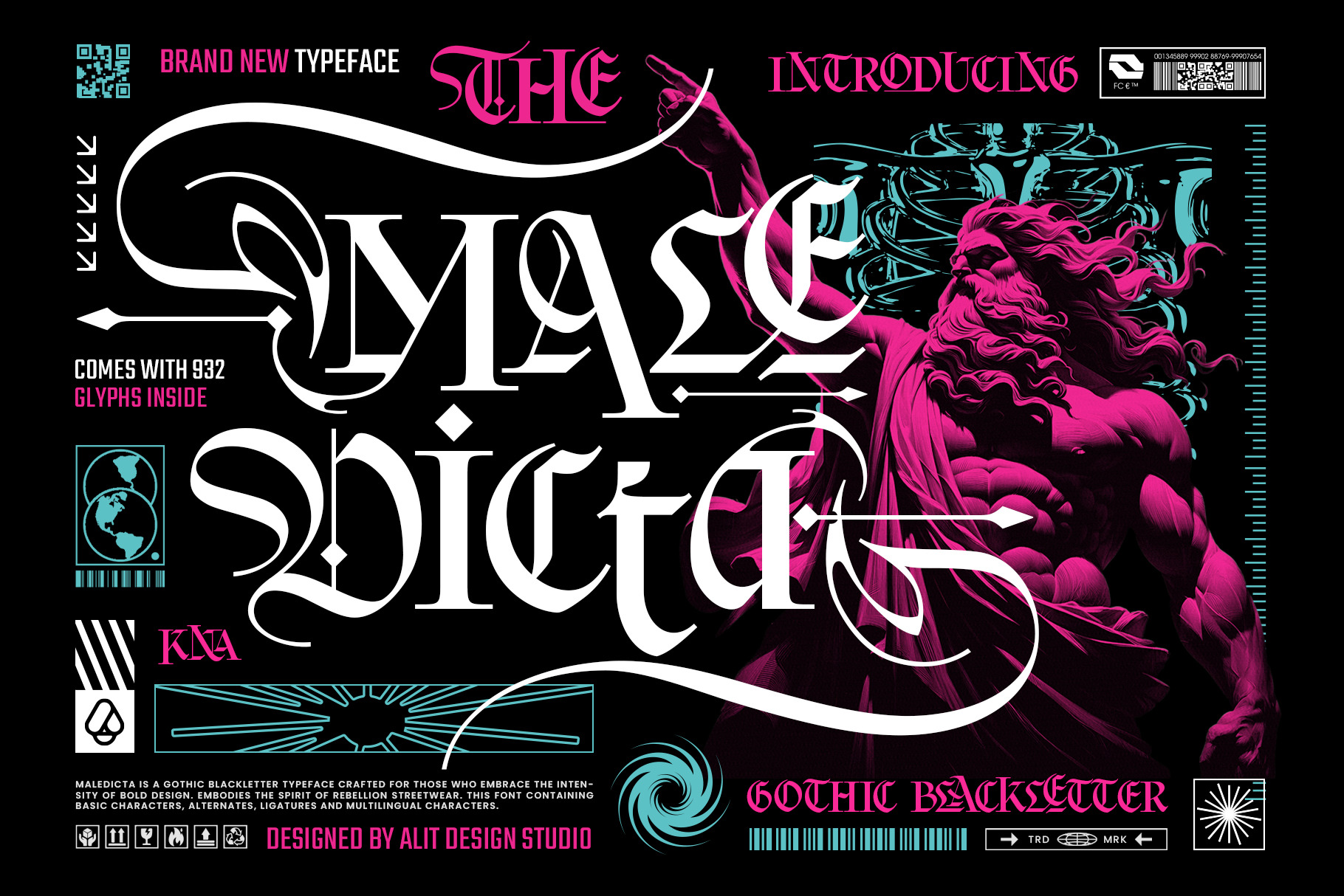
Maledicta Typeface
Maledicta Typeface – A Bold Fusion of Medieval Power and Modern Precision
Unleash the spirit of darkness and elegance with Maledicta Typeface. Inspired by classical European blackletter calligraphy and infused with sharp, contemporary geometric lines, Maledicta is designed for those who want their message to carry weight, authority, and a touch of mystery.
Every stroke of Maledicta is meticulously crafted to balance traditional gothic aesthetics with high-readability. Whether you are aiming for a gritty underground vibe or a premium vintage look, this font provides the versatility needed to stand out in a crowded market.
Branding & Logos: Create iconic emblems for clothing brands, tattoo studios, or breweries.
Music Industry: High-impact designs for album covers, band logos (especially Metal, Hardcore, and Punk), and concert posters.
Editorial Design: Bold headlines for magazines, book covers, and zines.
Merchandise: Eye-catching typography for t-shirts, hoodies, and posters.
Digital Content: Unique social media graphics and gaming overlays.
Uppercase & Lowercase characters
Opentype Features (Ligatures & Alternates)